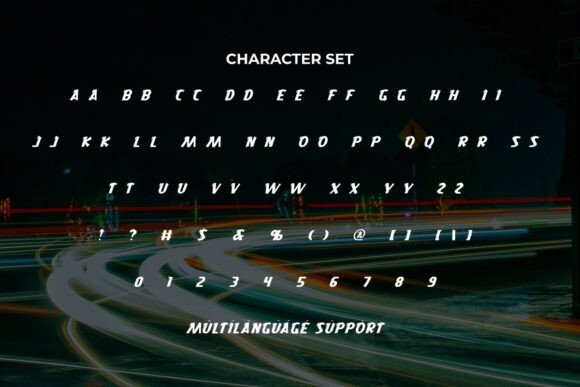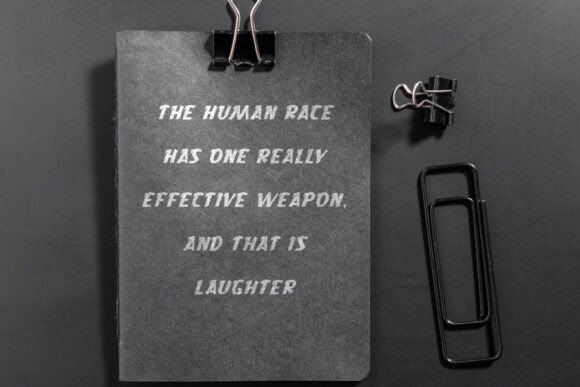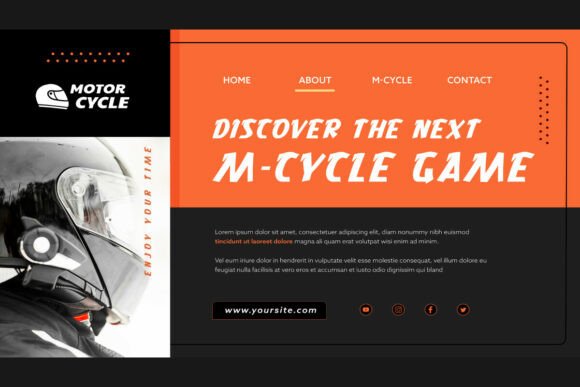
Unleash the Need for Speed: A Deep Dive into the Fast Swift Font
I still remember the design project that pushed me to search for the perfect font – a client’s request for a logo that screamed speed and adrenaline for their new racing team. As I scrolled through font libraries, I stumbled upon the Fast Swift font, and it was love at first sight! ✨ The sharp, aggressive angles and forward-leaning slant instantly conveyed the sense of motion and competitive energy I needed. In this article, I’ll share my experience with the Fast Swift font, its features, and how to make the most of it in your designs.
An Honest Review of Fast Swift
- ✨ High-octane energy: Fast Swift’s bold, dynamic design instantly captures attention and conveys a sense of speed.
- ✅ Versatility: This font is perfect for various applications, from sports branding and automotive logos to gaming interfaces.
- 🔥 Customization options: With OpenType features and glyphs, you can experiment with different styles and alternates to match your design needs.
While working with Fast Swift, I encountered a few minor limitations:
- 🤔 Legibility at small sizes: Due to its bold and condensed design, Fast Swift may become less legible at very small font sizes.
- ⚠️ Overuse of effects: Be cautious not to overdo it with effects like italicized outlines or chrome textures, as they can make the font look cluttered.
A Practical Guide to Using Fast Swift
- Experiment with OpenType features like Stylistic Alternates and Glyphs to add variations to your text.
- Exploring the Glyphs panel to insert special characters and alternates.
If you like Fast Swift, you might also consider these fonts:
- Boldster: A strong, condensed sans-serif font with a similar industrial feel. Use it for sports and automotive branding.
- Racing Sans: A sleek, sans-serif font designed specifically for racing and motorsports. Its clean lines make it perfect for logos and titles.
- Turbo: A bold, futuristic font with a similar high-tech feel. Ideal for gaming and tech-related designs.
- Speedway: A classic, serif font with a vintage racing feel. Use it for designs that require a nostalgic, retro look.
The Story Behind Fast Swift
Fast Swift was designed by a team of typographers who aimed to capture the essence of speed and competition. Inspired by the world of motorsports and high-performance vehicles, they crafted a font that embodies the spirit of adrenaline and motion. The result is a typeface that’s both bold and dynamic, perfect for designs that demand attention.
| Font Name | Fast Swift Font |
| Author | EdricStudio |
| What makes Fast Swift suitable for sports branding? | Fast Swift’s bold, dynamic design and high-octane energy make it perfect for sports branding, conveying a sense of speed and competition. |
| Can I use Fast Swift for gaming interfaces? | Absolutely! Fast Swift’s futuristic feel and bold design make it an excellent choice for gaming interfaces, especially those that require a high-energy look. |
| How do I pair Fast Swift with other fonts? | For a dominant, industrial look, pair Fast Swift with a heavy block serif font. This contrast will create a visually appealing combination that’s perfect for racing tracks or digital screens. |
| Is Fast Swift legible at small font sizes? | While Fast Swift is designed to be bold and attention-grabbing, it may become less legible at very small font sizes. It’s best to use it at larger sizes to maximize its impact. |